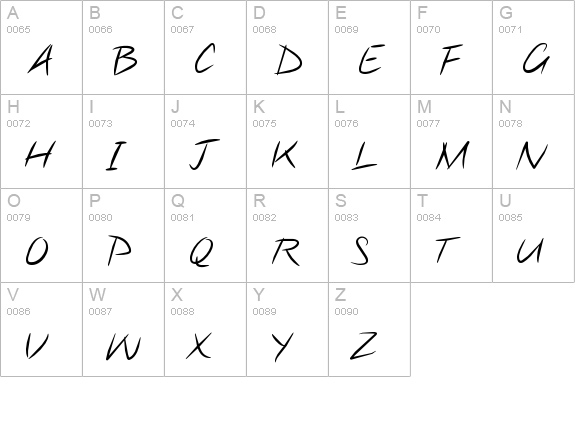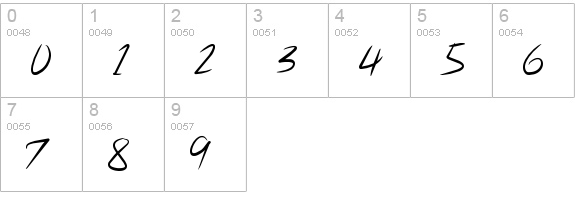
Note this font is a modern and stylish typeface that is sure to make your designs stand out. With its clean lines and elegant curves, this font is perfect for a wide range of projects, from branding to invitations to social media graphics. The best part? It's completely free to download at FontsMarket.com, so you can start using it right away without breaking the bank. Whether you're a seasoned designer or just getting started, Note this font is a versatile and eye-catching option that will elevate your work to the next level. Download it today and see the difference it can make in your projects!